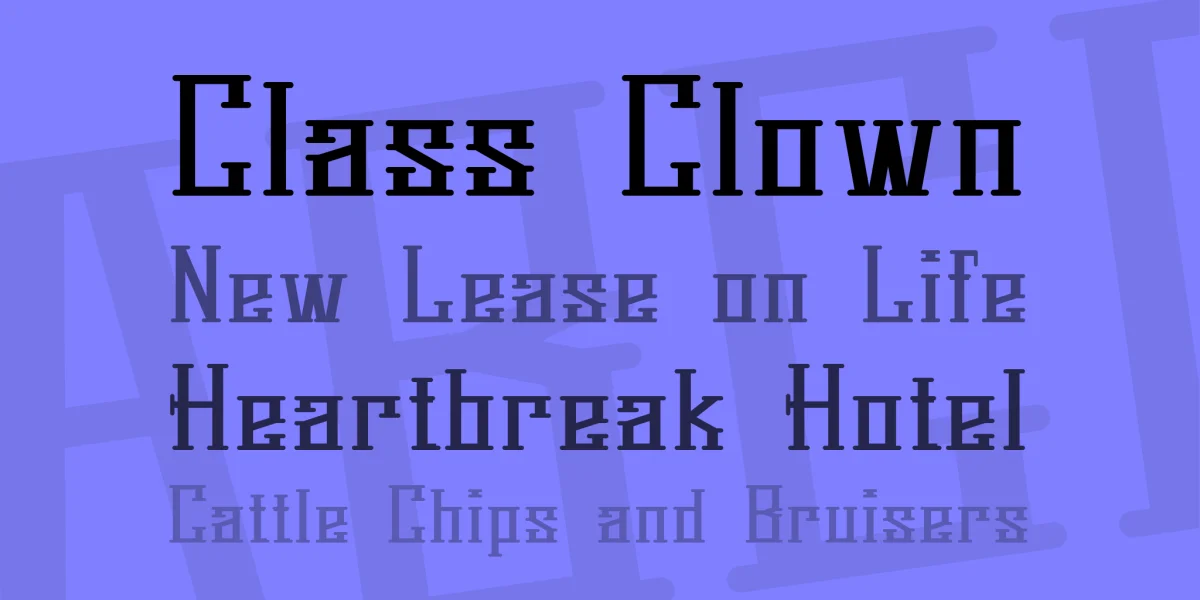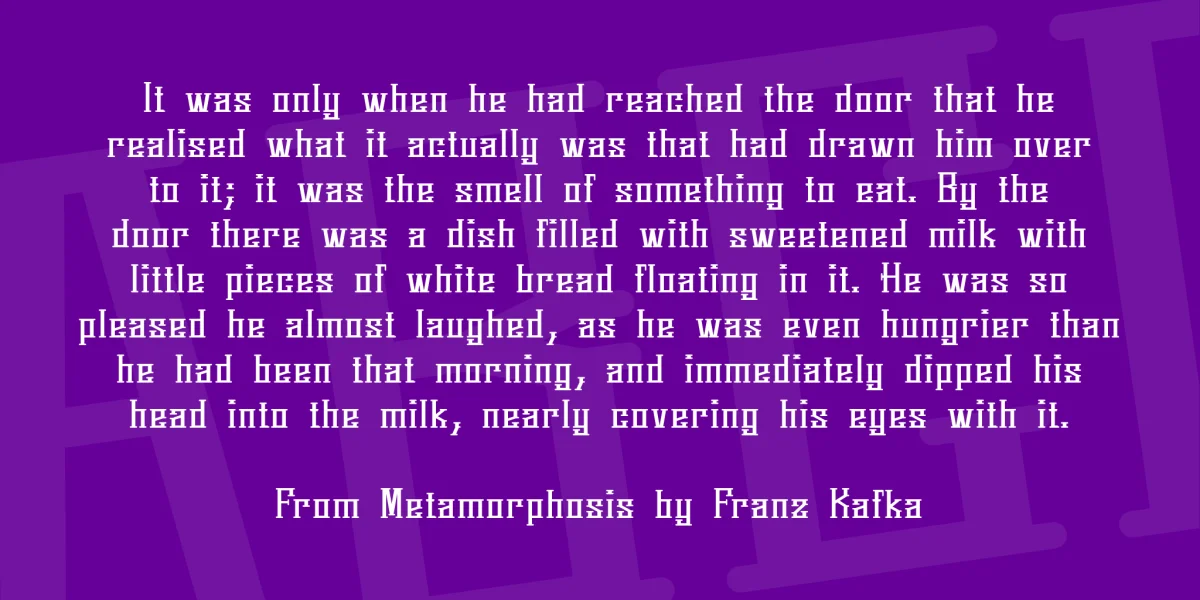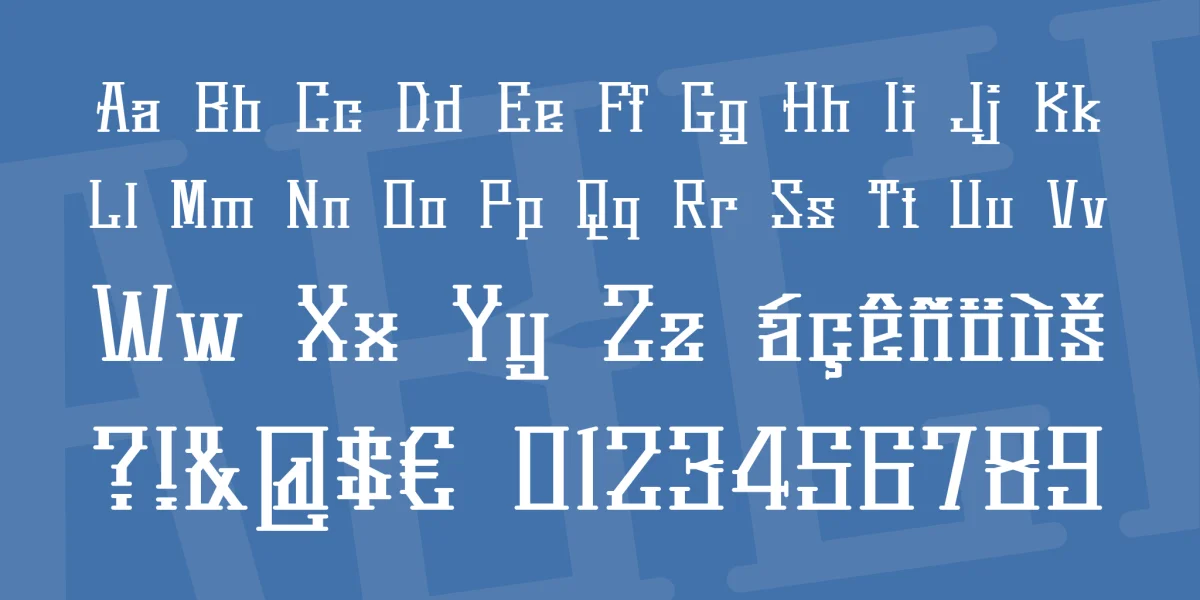
Springmarch is an original typeface inspired by a sample of a font called “Lyric” spotted in a 19th century type specimen book. It’s not a re-creation of it, the original was much spikier. This development takes it from Goth to Steampunk. “Springmarch” is taken from the words chosen by the typesetter of the specimen book.